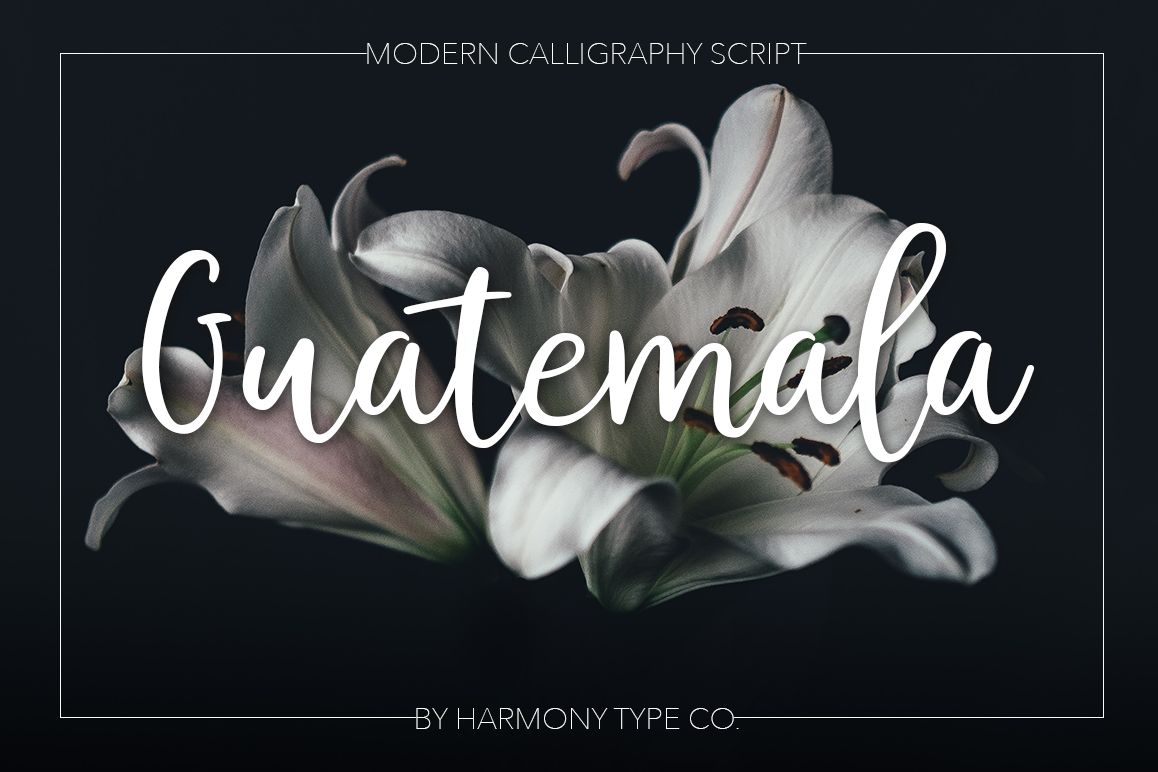
Guatemala Script
It's handwritten script. This font is ideal for branding and decorate your any project.
This font are perfect for wedding invitation or your blog. Also with their help, you can create a logo or beautiful frame for your home. Or just use for your small business, book covers, stationery, marketing, magazines and more.